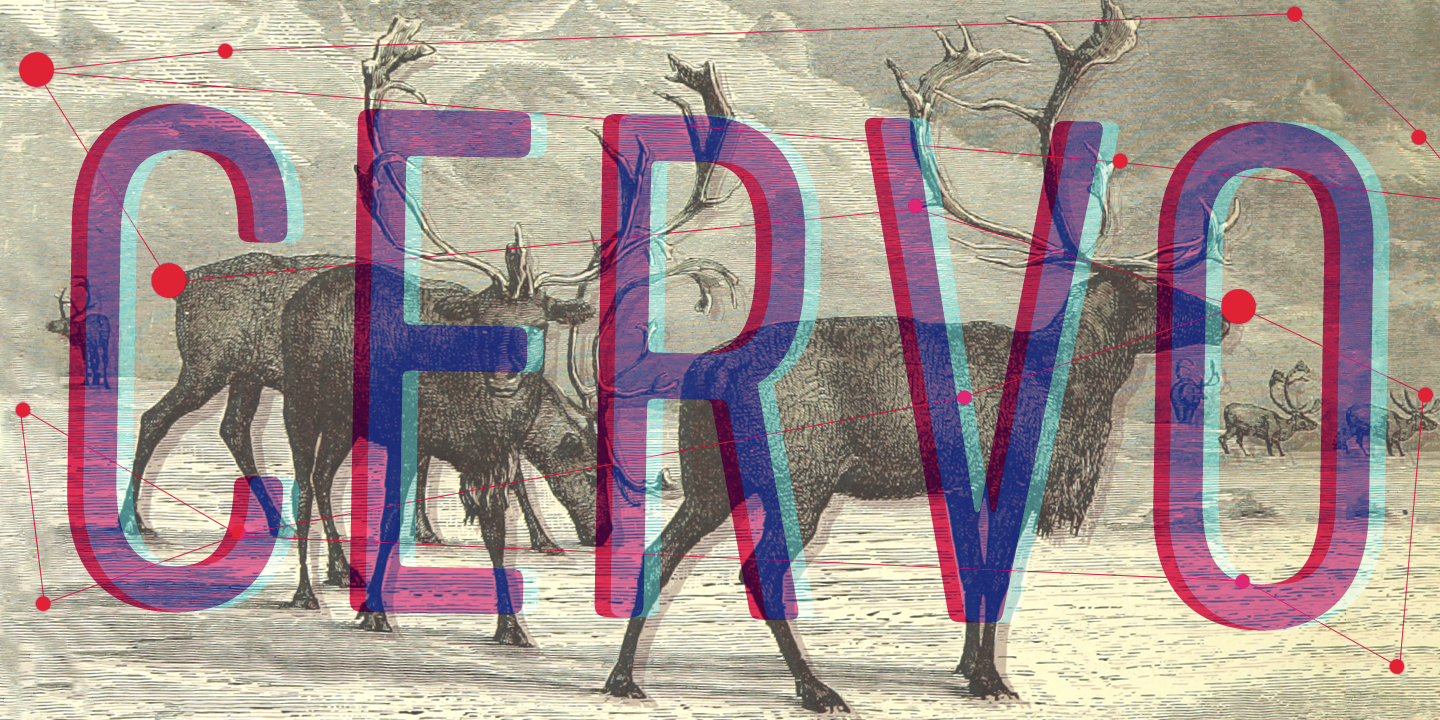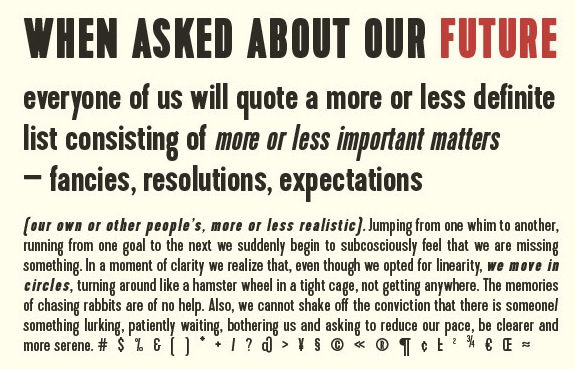
Typoforge [Blazej Ostoja Lniski]
Blazej Ostoja Lniski (b. 1974, Czersk, Poland) specializes in painting and lithography. From 1994 until 1999, he studied at the Warsaw Academy of Fine Arts. Currently, he is the Dean of the Faculty of Graphic Arts at he Warsaw Academy of Fine Arts. He founded the type foundry Typoforge.
Creator of Merlo (2014, inspired by a You And Me Monthly published by National Magazines Publisher RSW Prasa; followed in 2015 by Merlo Round and in 2016 by Merlo Grotesque and Merlo Neue), Cervo (2014, a simple almost heartless sans that was inspired by a You And Me Monthly published by National Magazines Publisher RSW Prasa that appeared from 1960 until 1973 in Poland), Cervo Neue (2016), Toppo (2014, a letterpress emulation family inspired by a You And Me Monthly published by National Magazines Publisher RSW Prasa), Pekora and Pekora Slab (2014: inspired by a You And Me Monthly published by National Magazines Publisher RSW Prasa (Poland) between May 1960 and December 1973), Rospi Clean (2014: inspired by the weekly Tygodnik Ilustrowany from 1933), Rospo Wood (2014: a worn letterpress typeface inspired by the weekly Tygodnik Ilustrowany (1933)), Lupo (2014), Kapra (2014) and Bobbin Cyrillic (2014, letterpress style), which were inspired by You And Me Monthly published by the (Polish) National Magazines Publisher RSW Prasa which was active from 1960 until 1973. Kapra is beautiful---it has some of the masculinity of Impact and the naïveté of wood type. Other typefaces by him in 2014 include Skuul (a desperate cold war font inspired by a Letraset font from 1981), Blezja (inspired by a metal tin dated 1907, Potsdam), Greta (a roman typeface based on a prayer book from 1888), and Kleks (grunge typeface inspired by vernacular typography in Potsdam).
Typefaces from 2016: Cozza (a grungy typeface family based on the dry transfer architect set Unitras Letraset from the 1980s).
Typefaces from 2017: Merlo Neue Round, Kapra Neue (24 styles).
Typefaces from 2018: Gambero (a slab cousin of Kapra with a reversed lower case g), Kapra Neue Pro.
Typefaces from 2020: Tylbor (a 14-style monolinear almost DIN-like sans), Cervino (a 54-style sans).
Typefaces from 2021: Cervo Neue Condensed (18 styles).